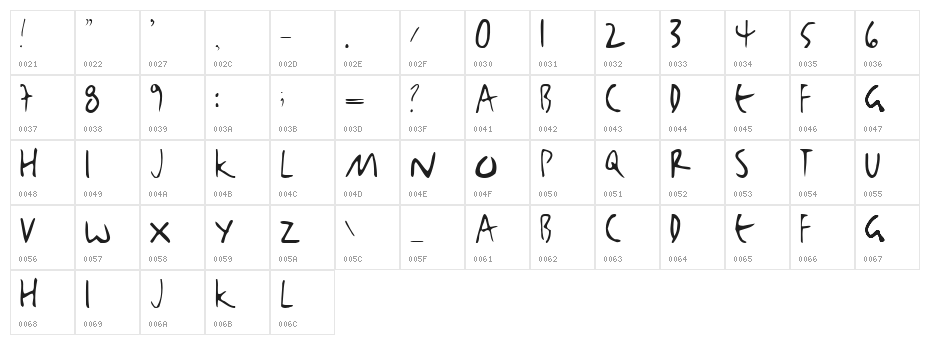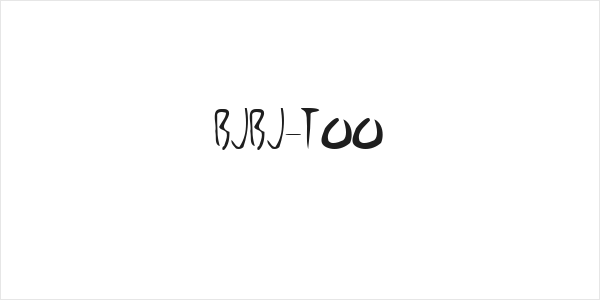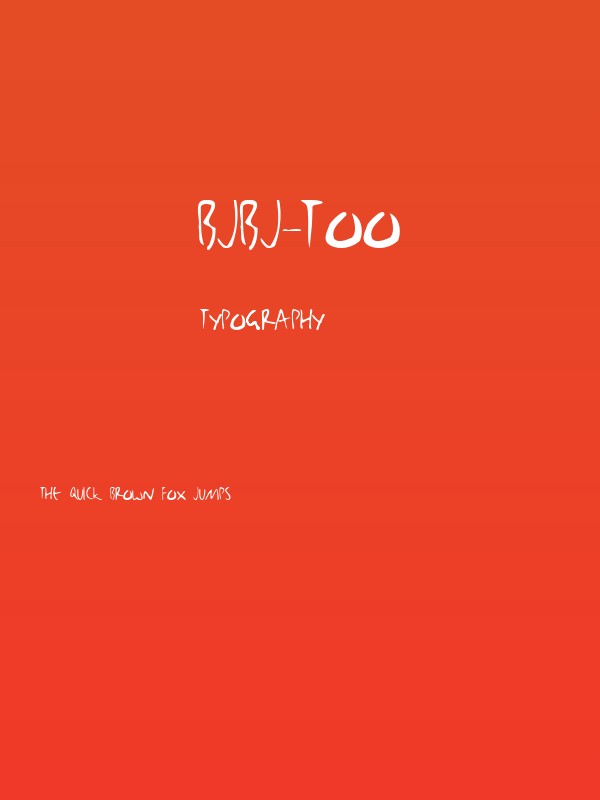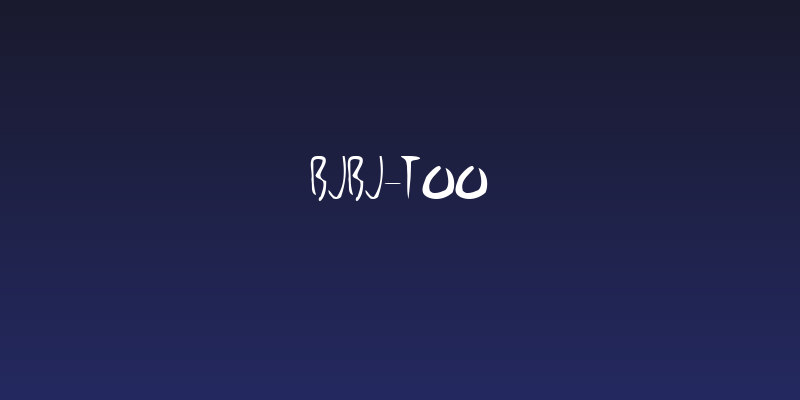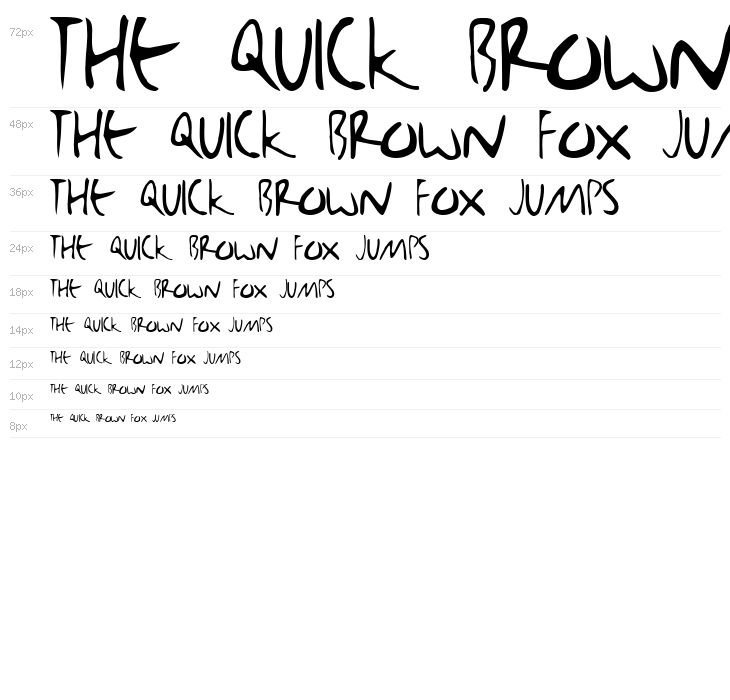
BjBj-TOO Font
BjBj-TOO Description
This font features a dynamic and expressive handwritten style, characterized by its fluid and slightly irregular strokes. The letters exhibit a playful and casual aesthetic, with varying stroke widths that add a sense of movement and personality. The uppercase and lowercase letters maintain a consistent style, while the numerals and special characters blend seamlessly with the overall design. The font's organic appearance makes it suitable for projects that require a personal touch or a creative flair.
| Proposed Projects | Ideal for greeting cards, invitations, personal branding, and creative projects that require a personal touch. |